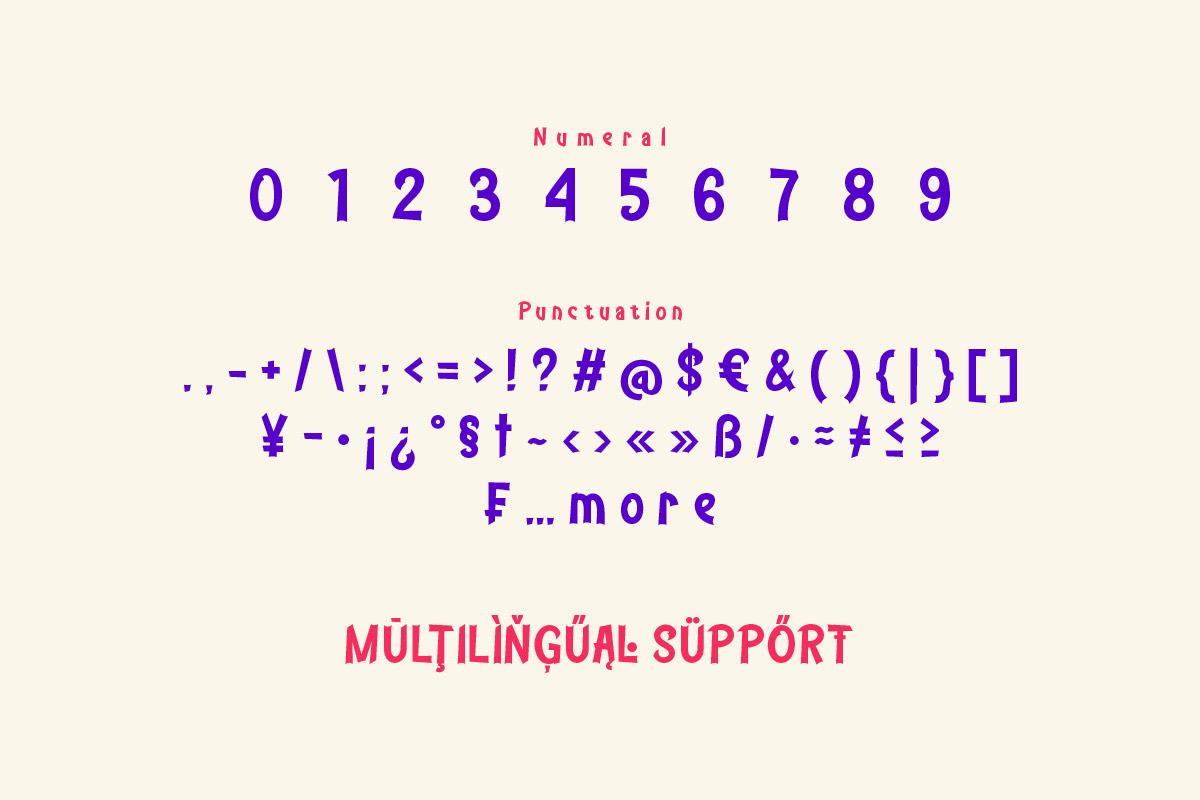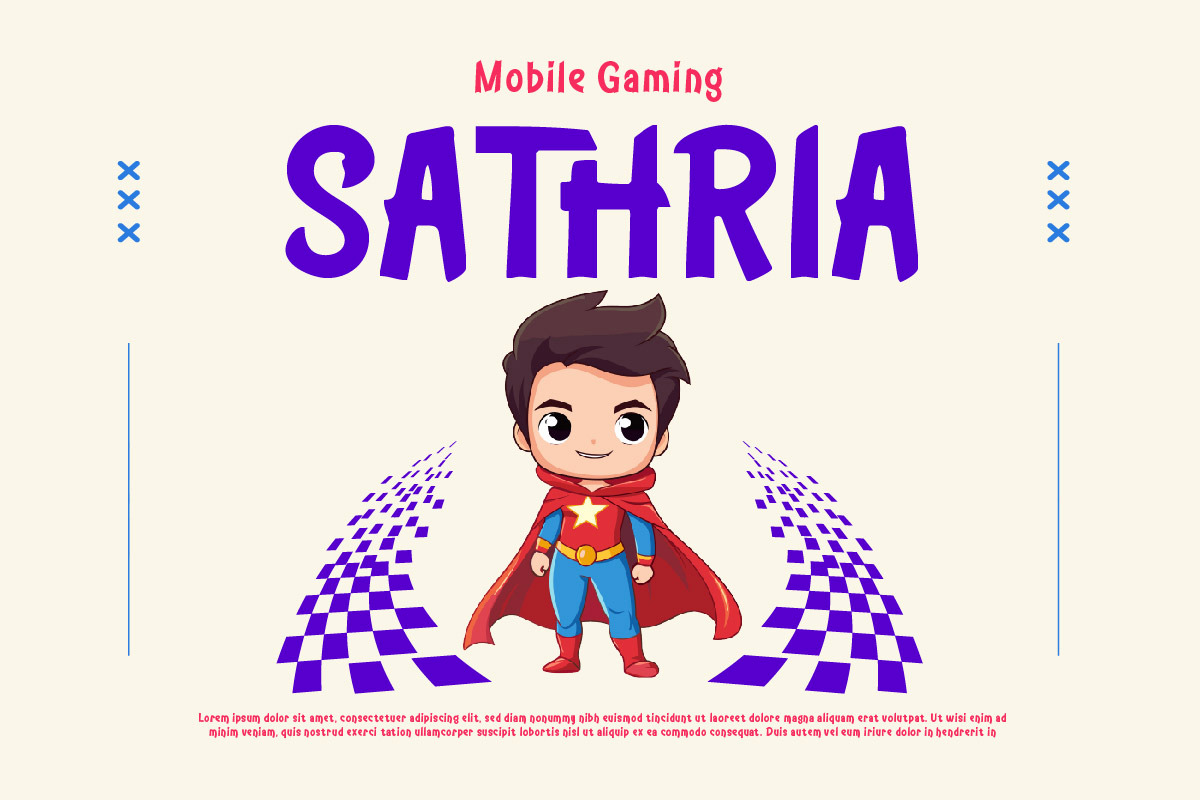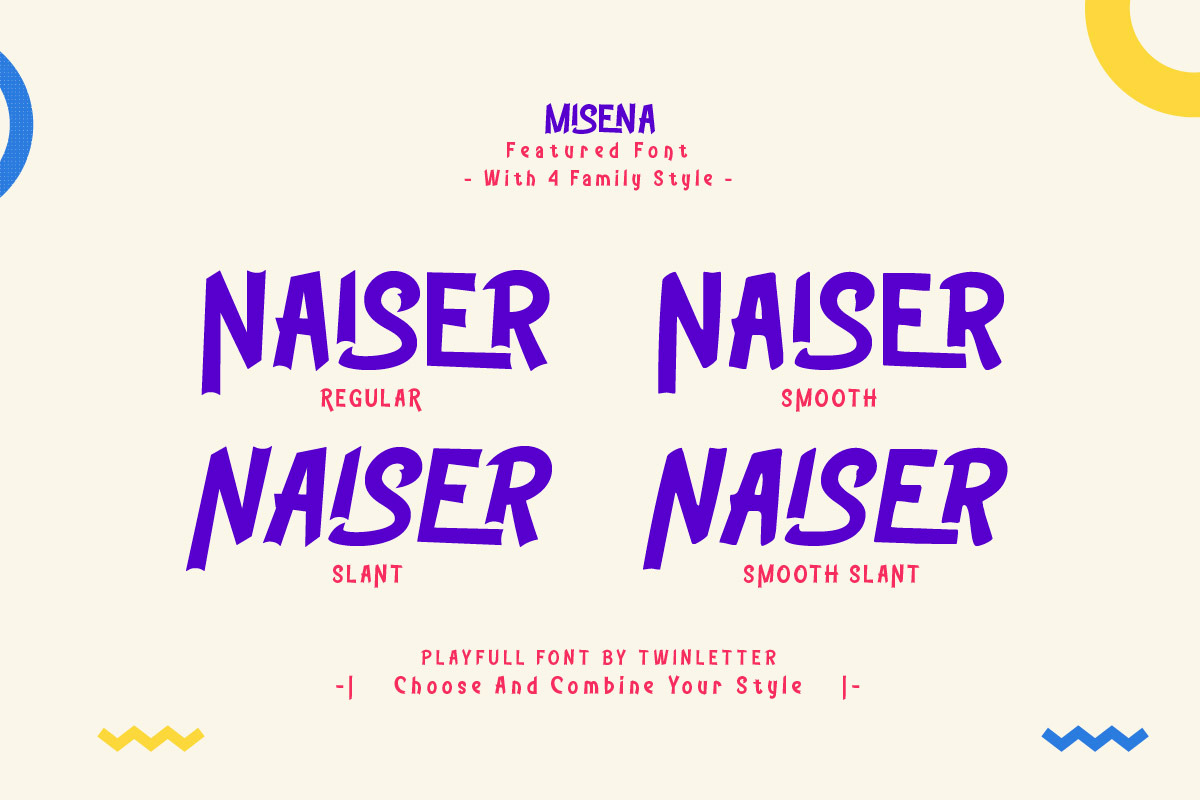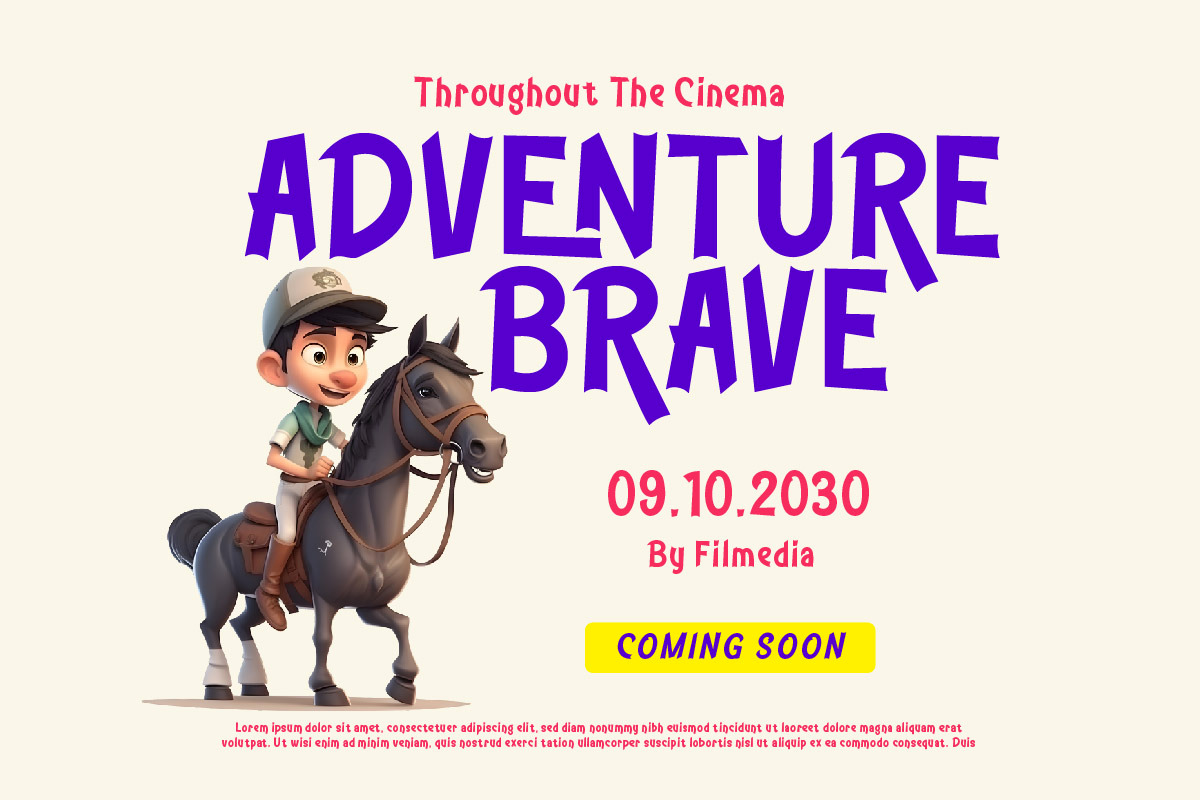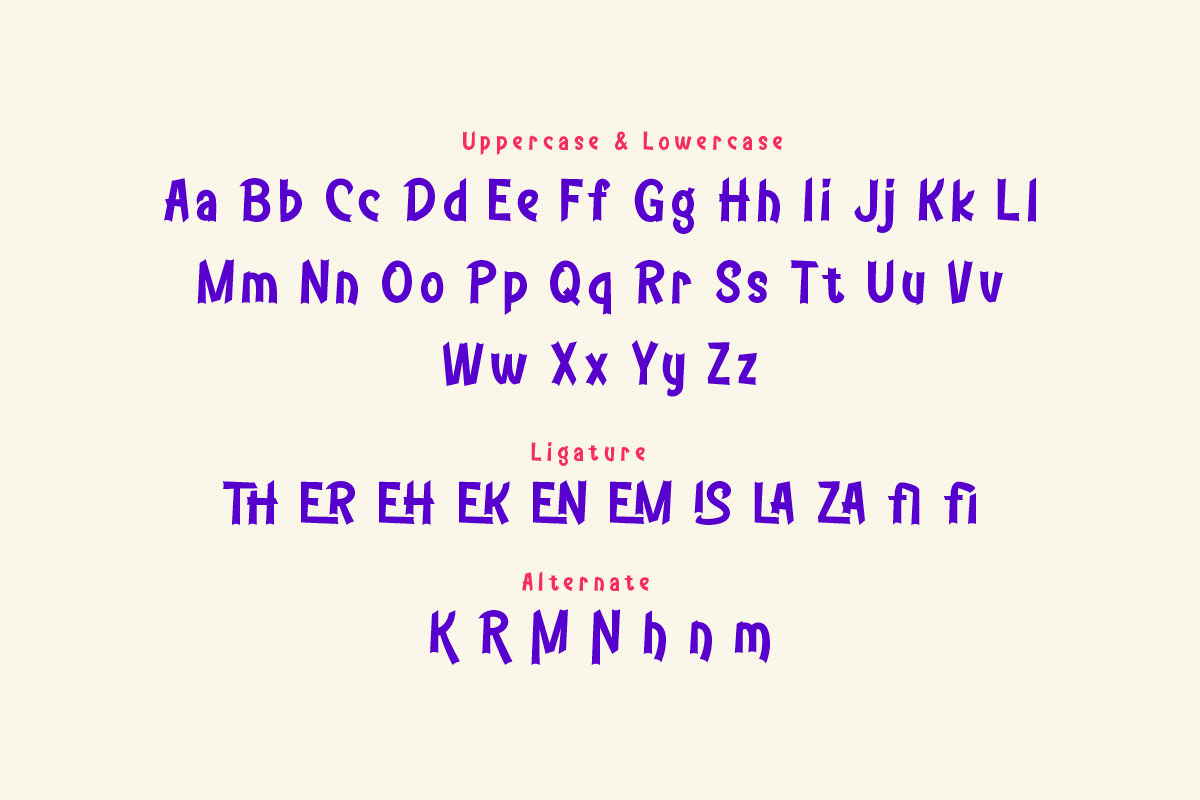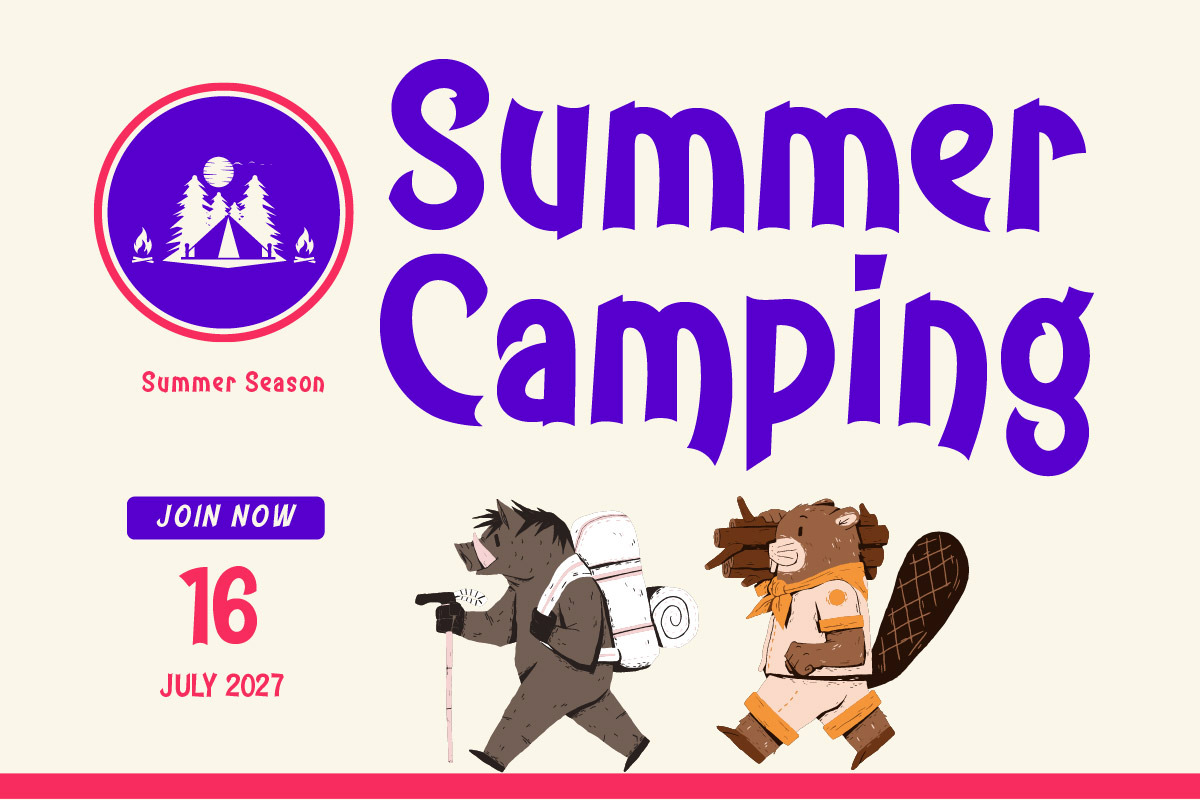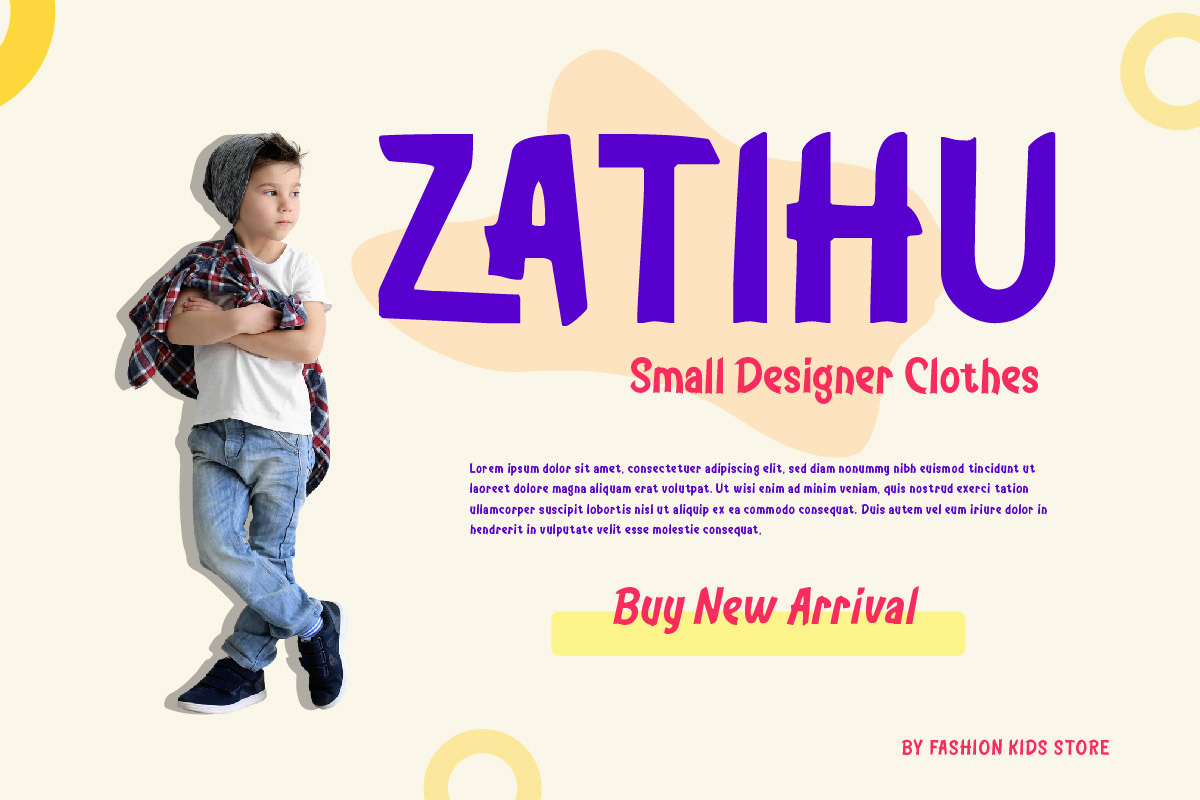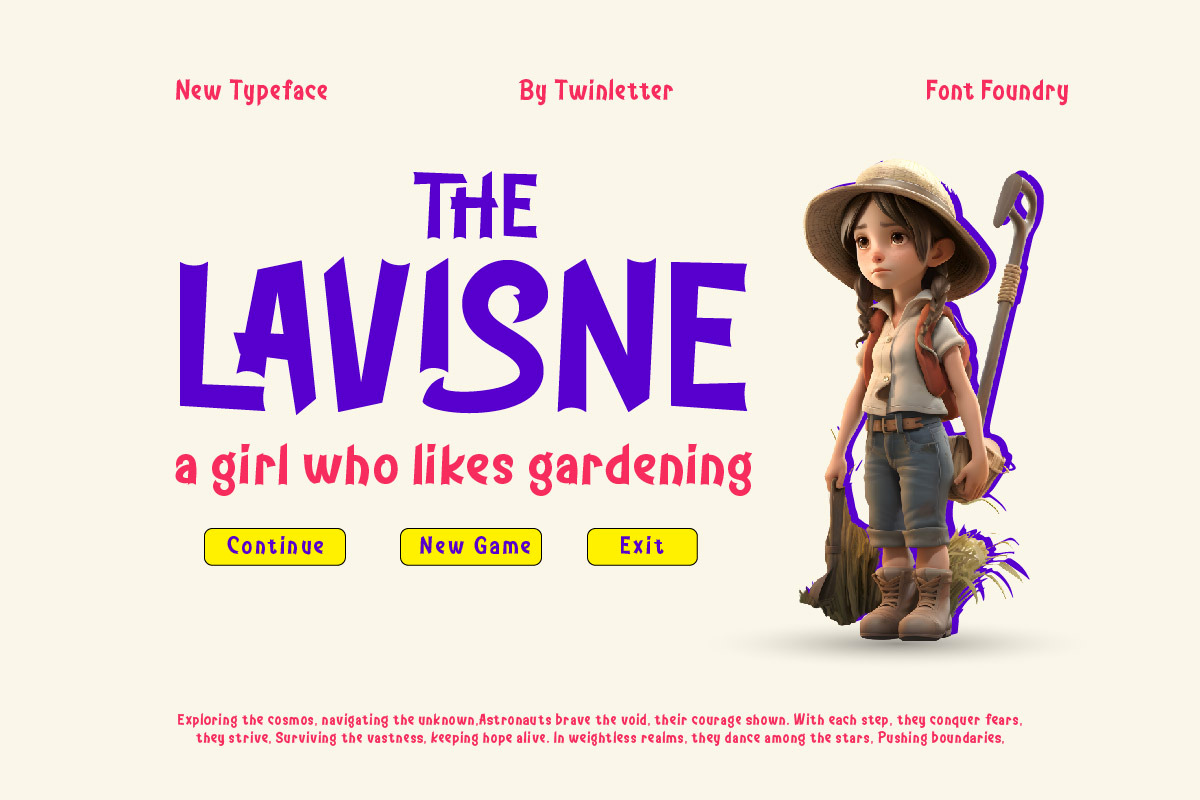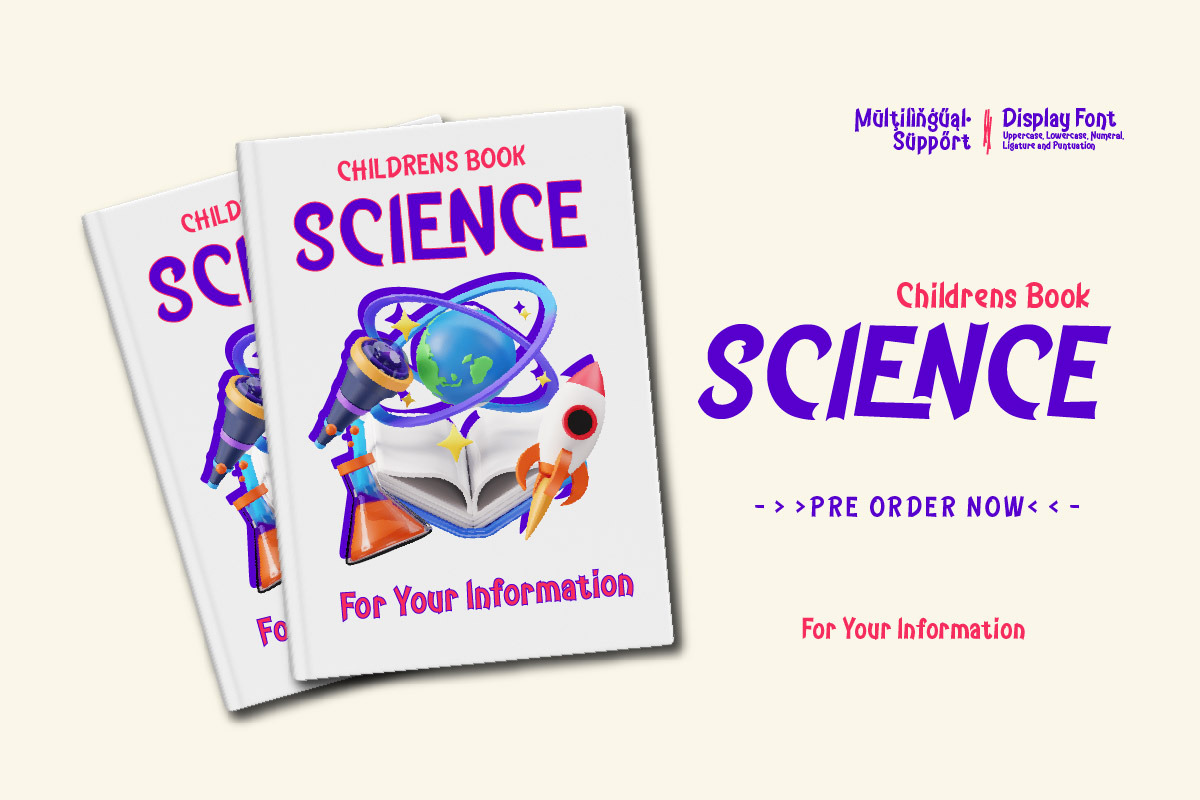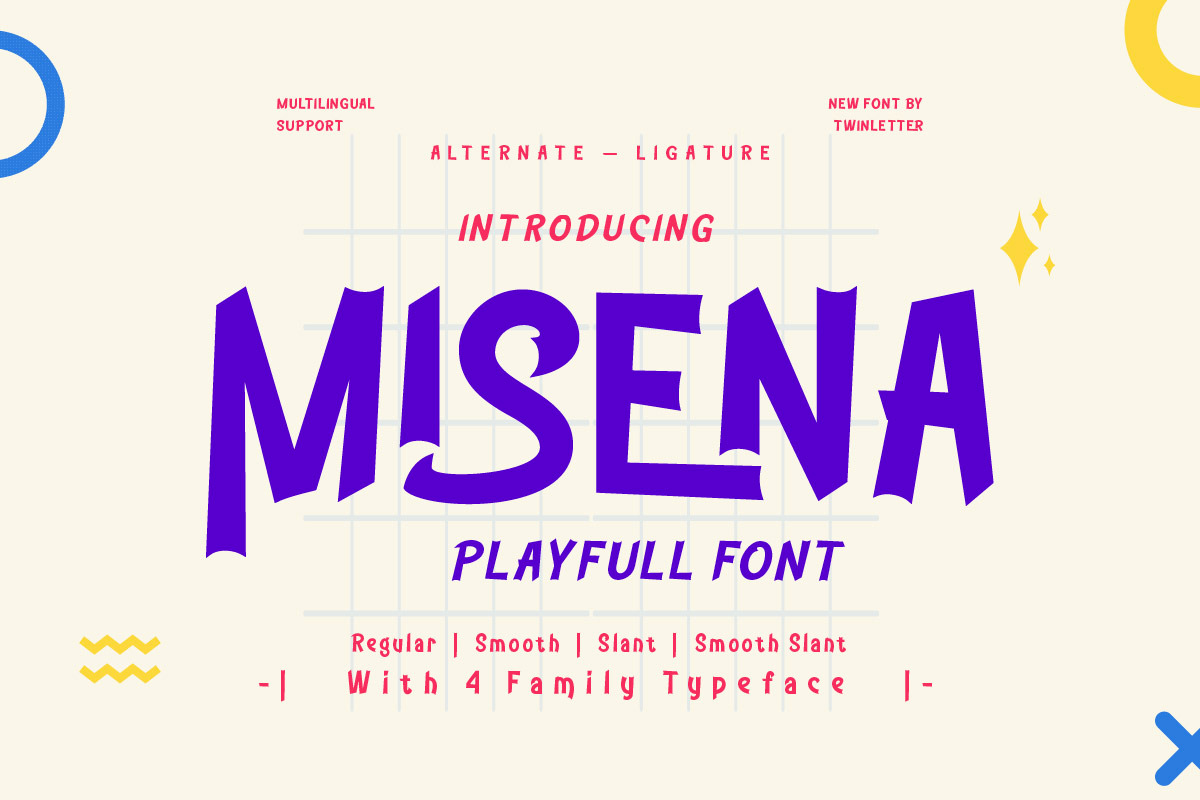
Misena - Playful Display Font
Misena is a playful display font that’s full of fun and charm. Its quirky, irregular shapes make it a great choice for children’s books, party invitations, or any design project that calls for a fun and friendly feel. But Misena is more than just a font, it’s a way to bring joy and laughter to your designs. With Misena, your designs will not only look great, but also bring a smile to people’s faces. It’s like a burst of laughter in a quiet room, bringing joy and happiness to everyone who sees it.